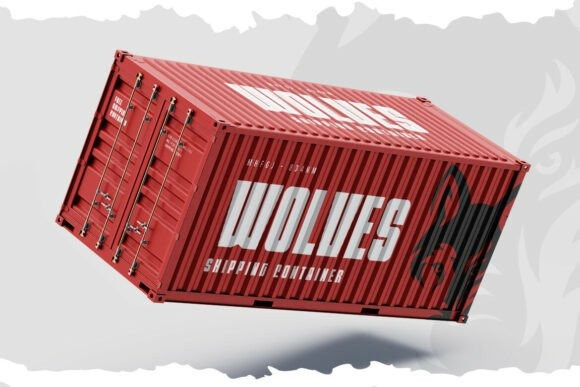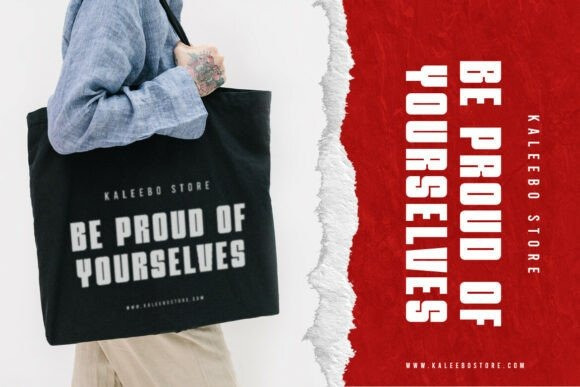
Granitey Font
Granitey Font is a modern, bold sans-serif typeface designed to make a powerful statement. With its strong, geometric forms and thick, commanding presence, this font exudes confidence and stability. The sharp angles and unique cut-ins give it a distinct character, making it ideal for projects that demand attention.